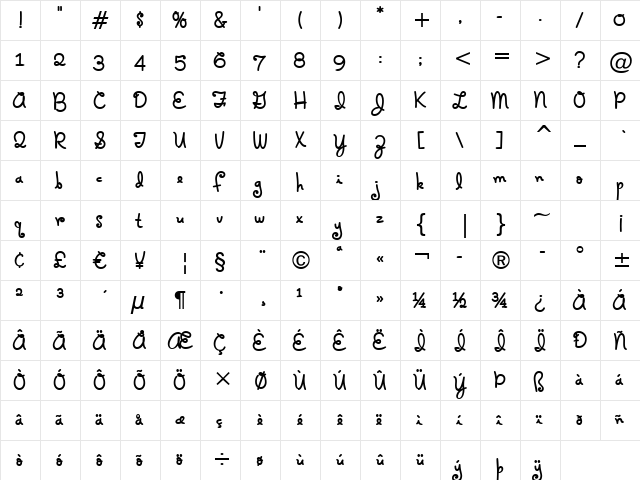
Holiday Springs BTN Bold
Design Context for Holiday Springs BTN Typeface
Holiday Springs BTN is a composed and adaptable typeface that performs quietly and consistently across a wide range of design contexts. The heavy weight commands attention and anchors typographic hierarchies.